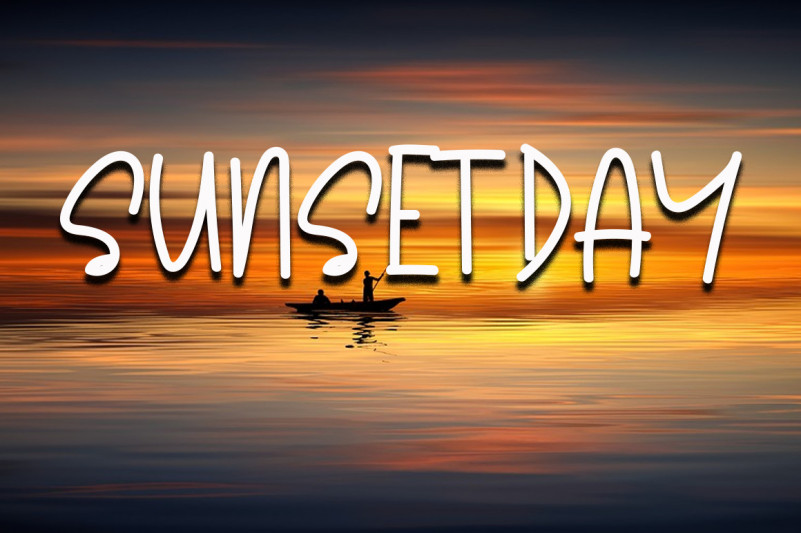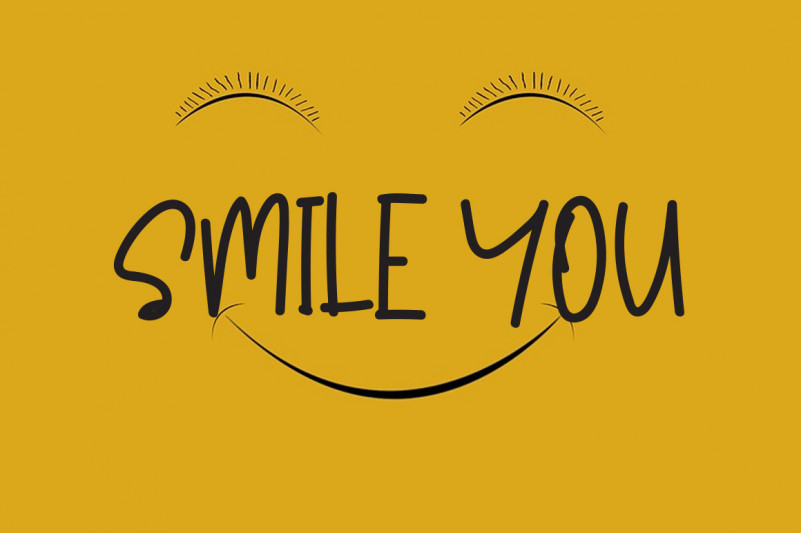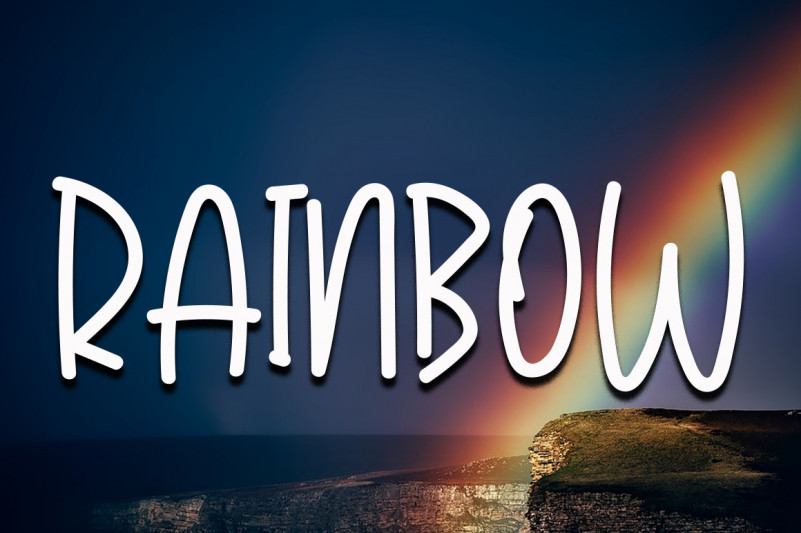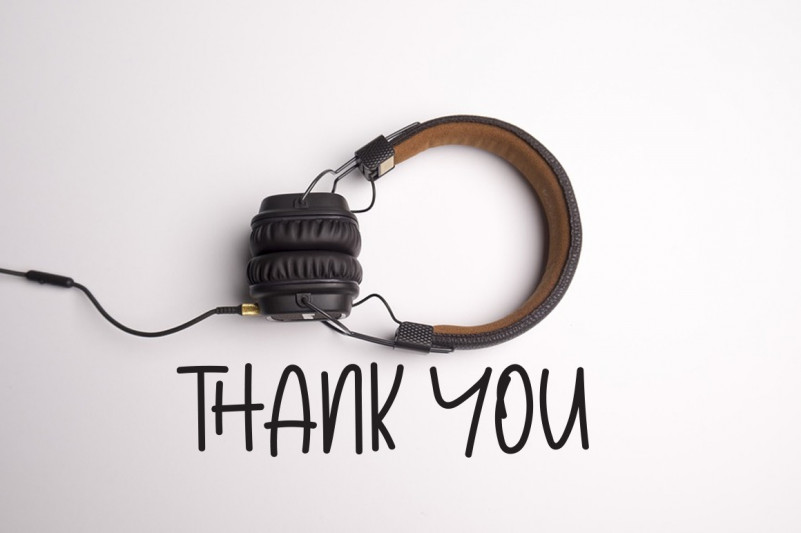
summer summer Font
summer summer Display Font
This is a unique, fun and friendly handwritten font. Whether you’re looking for a font for Instagram or a calligraphy script for a DIY project, this font will turn any creative idea into a true work of art!